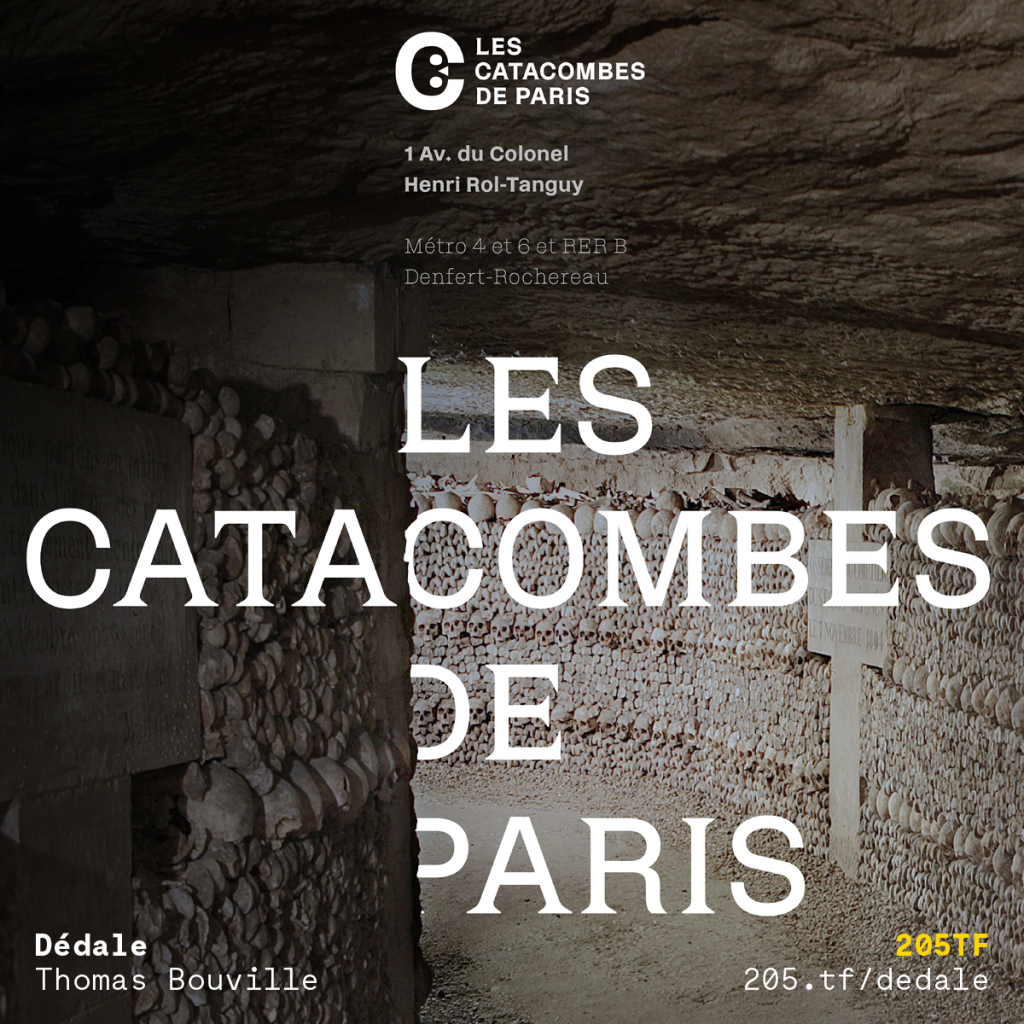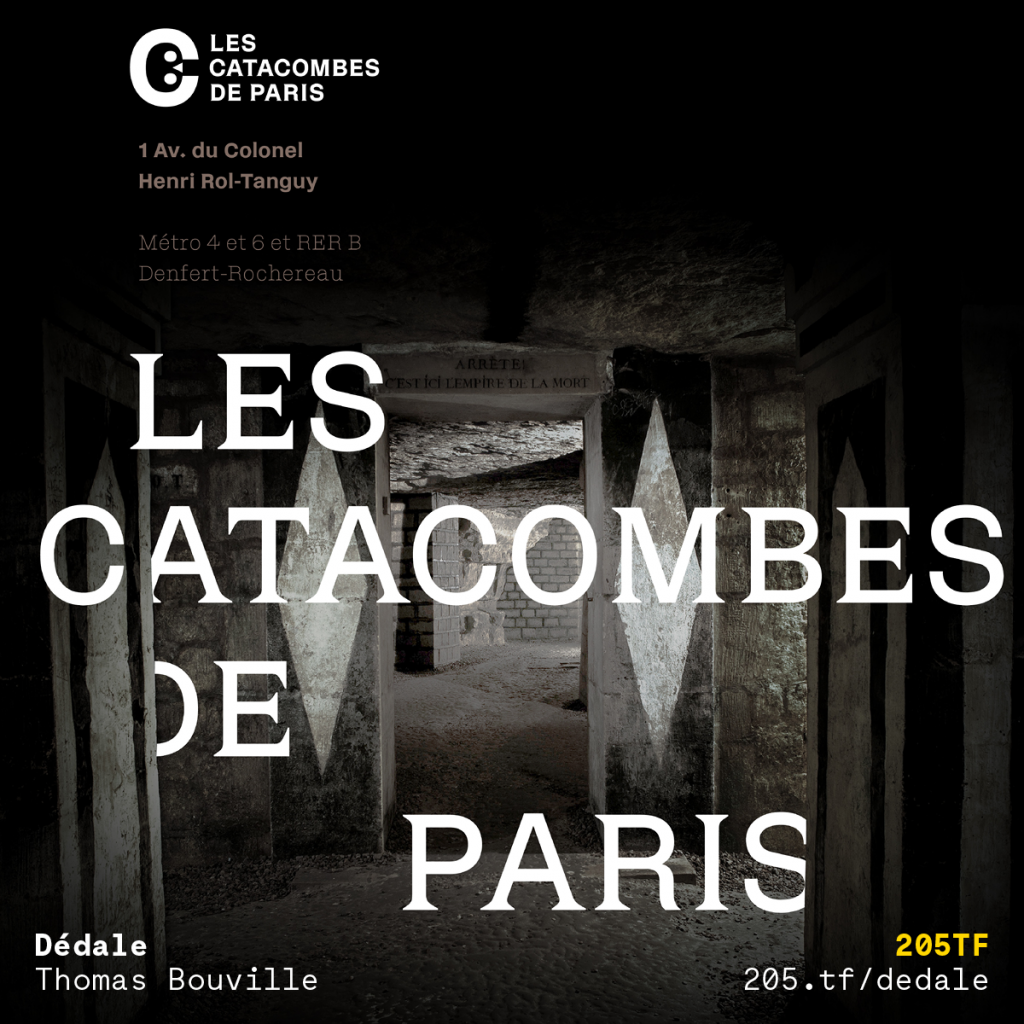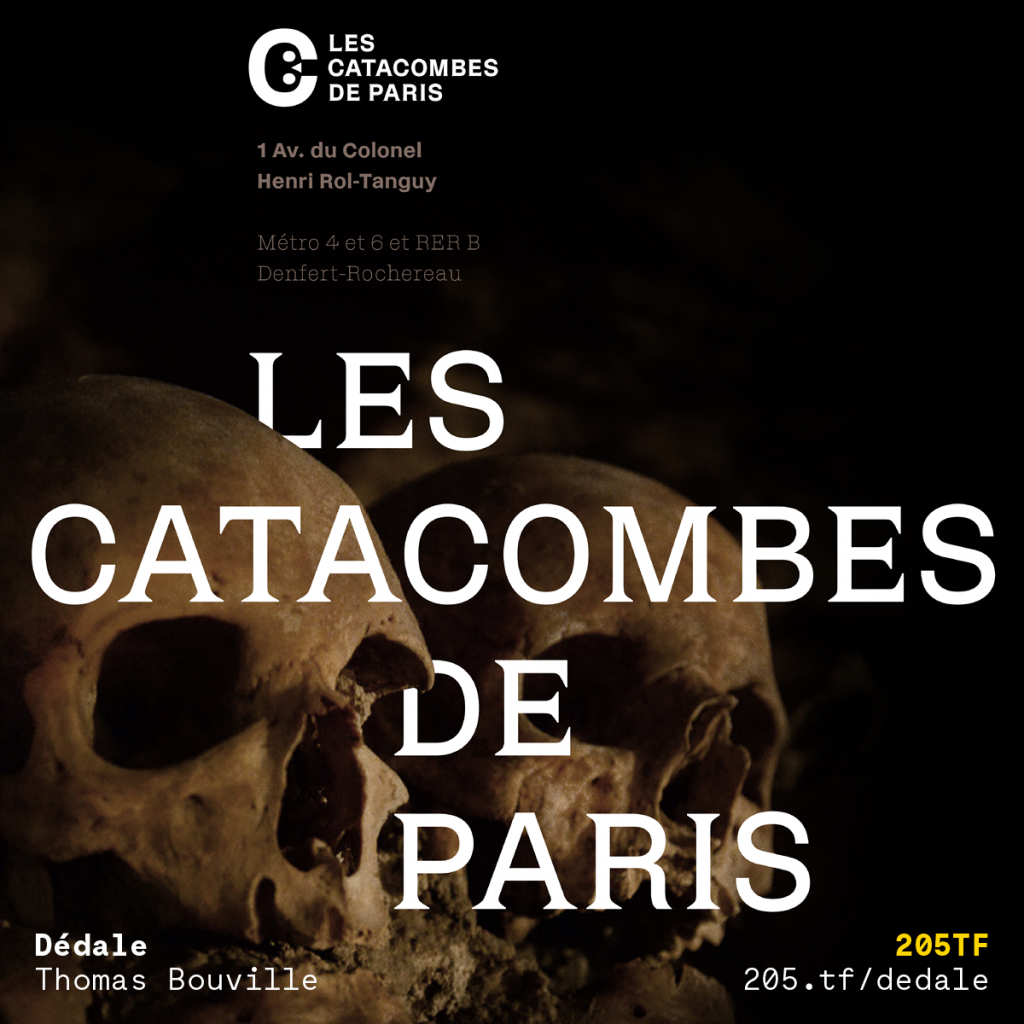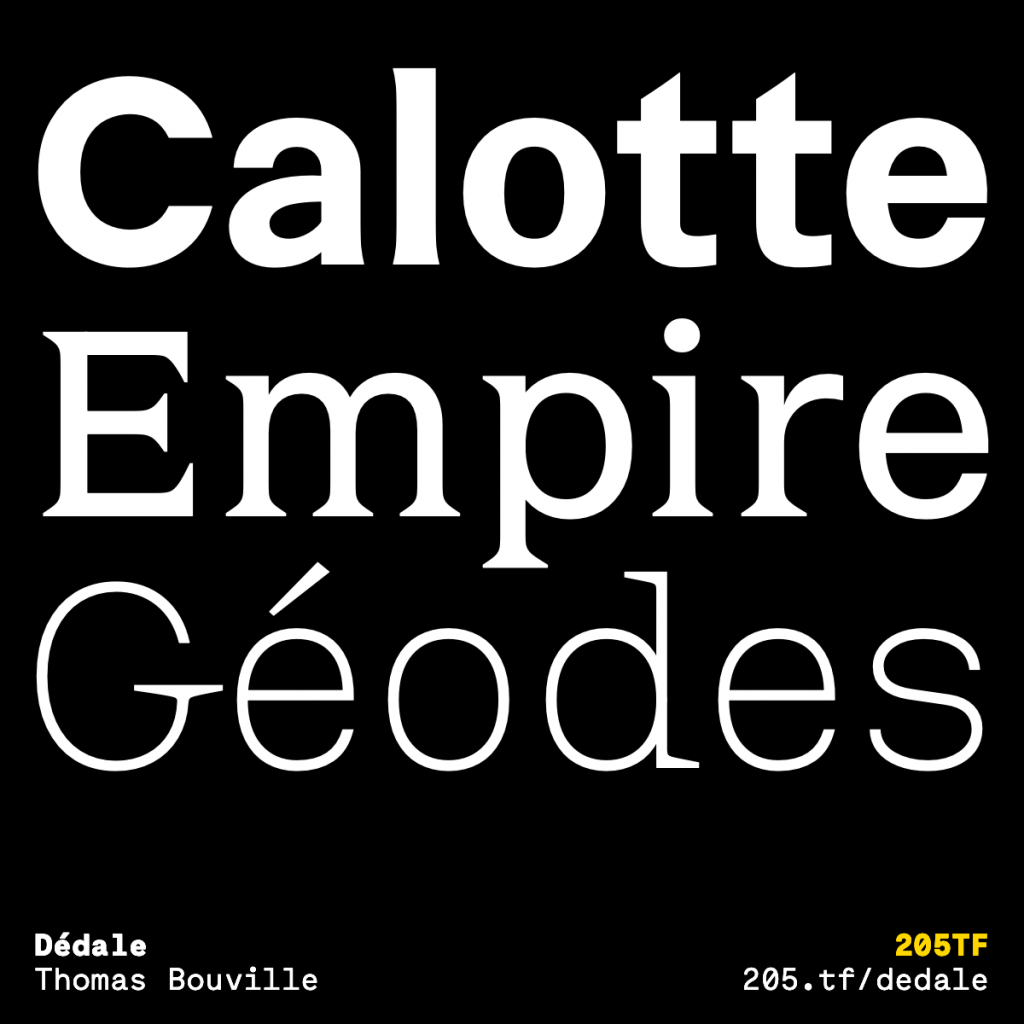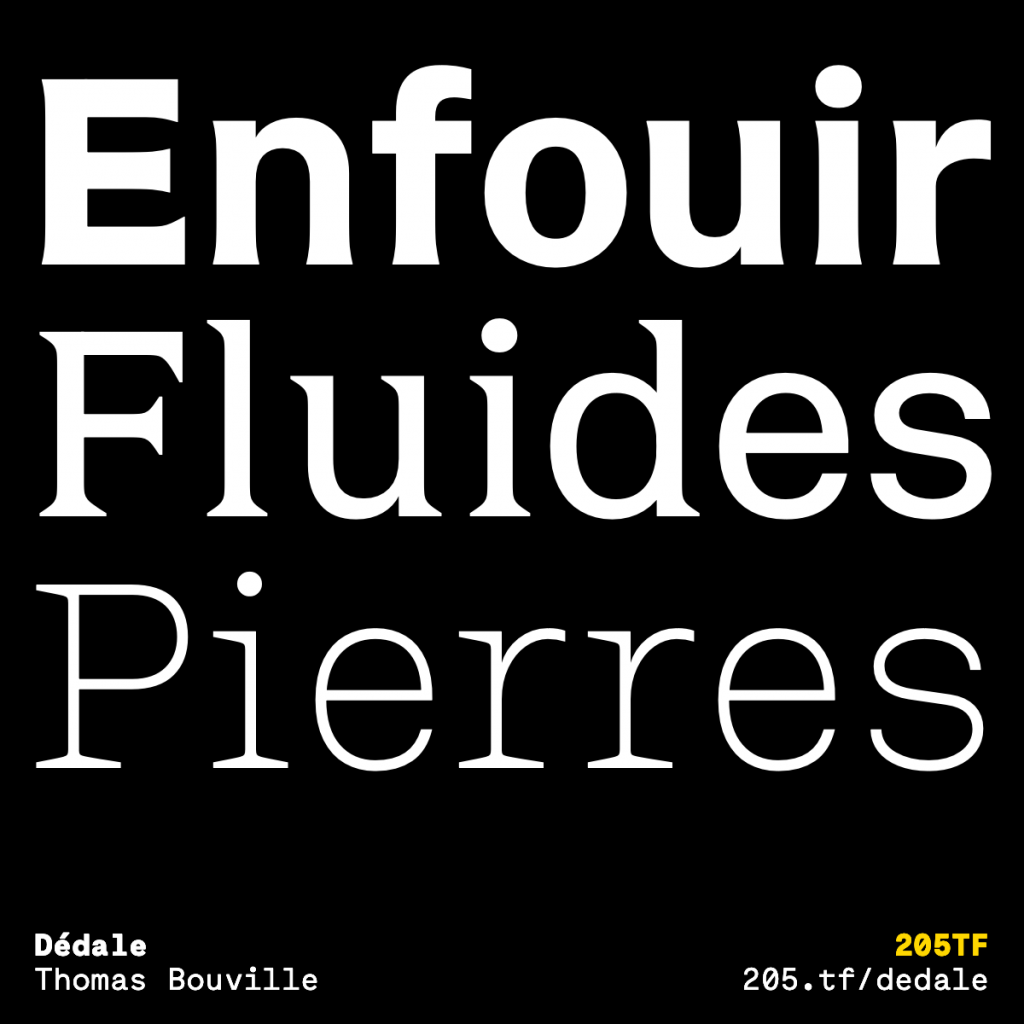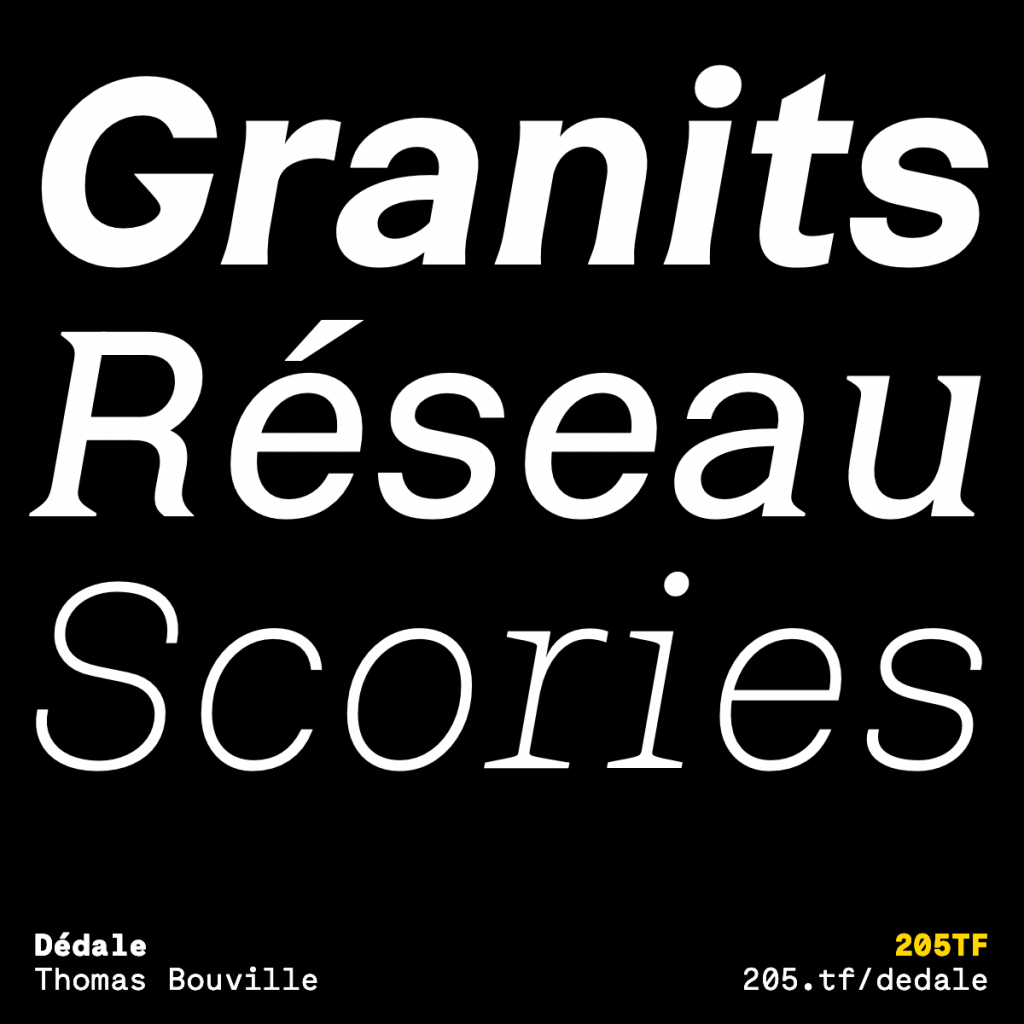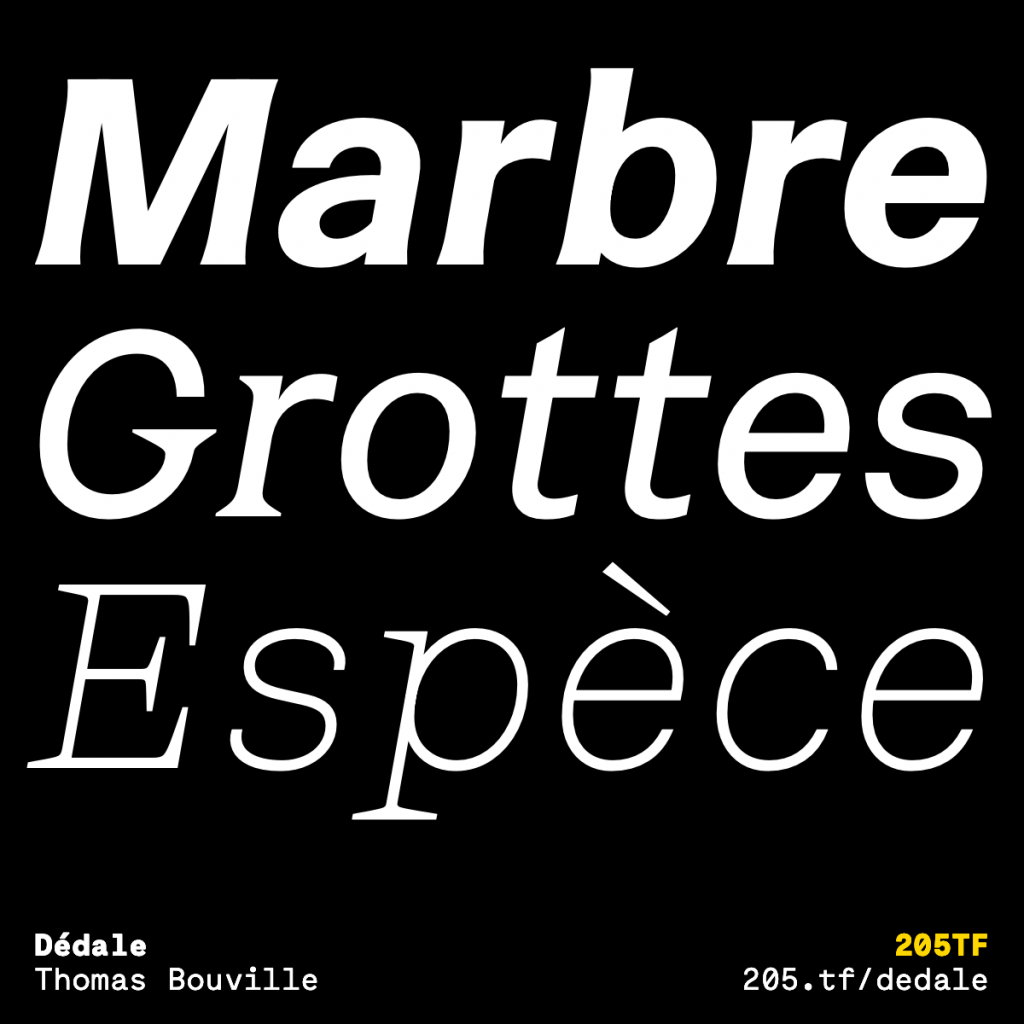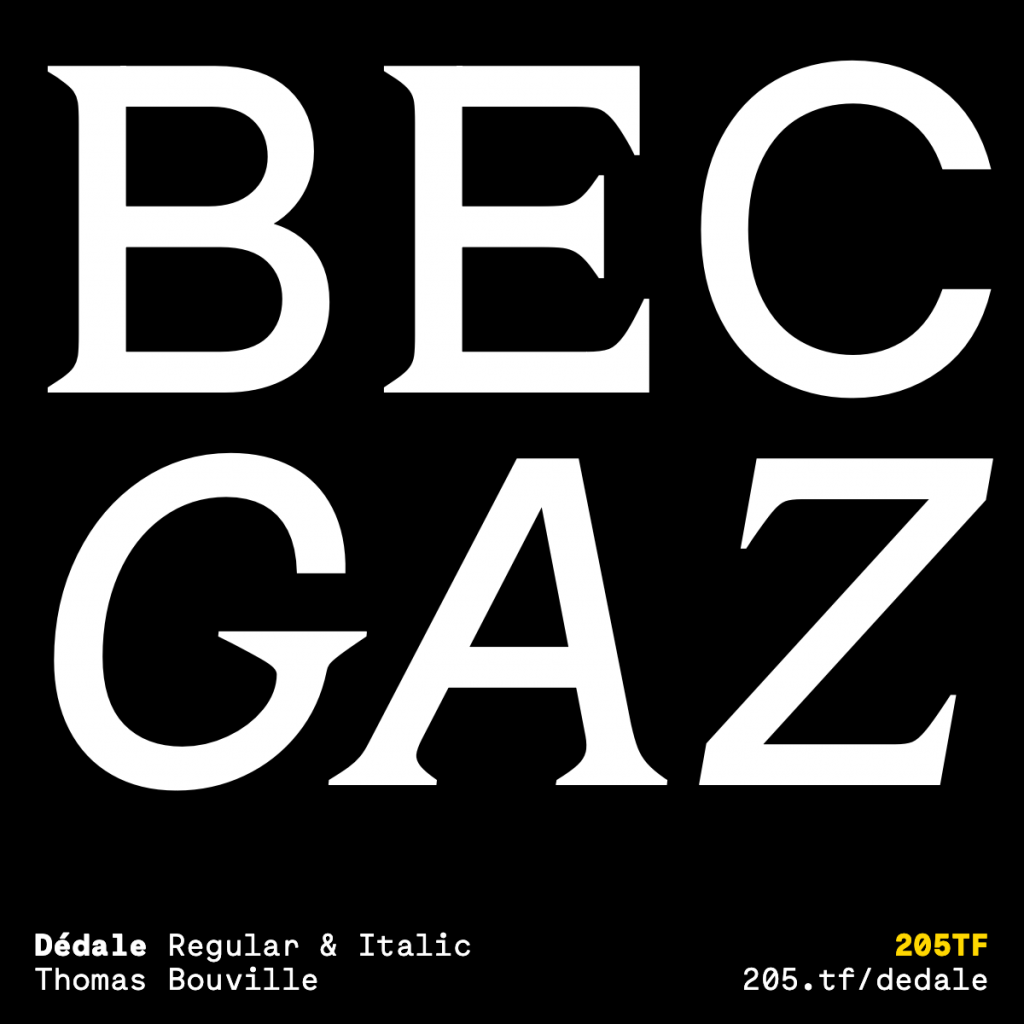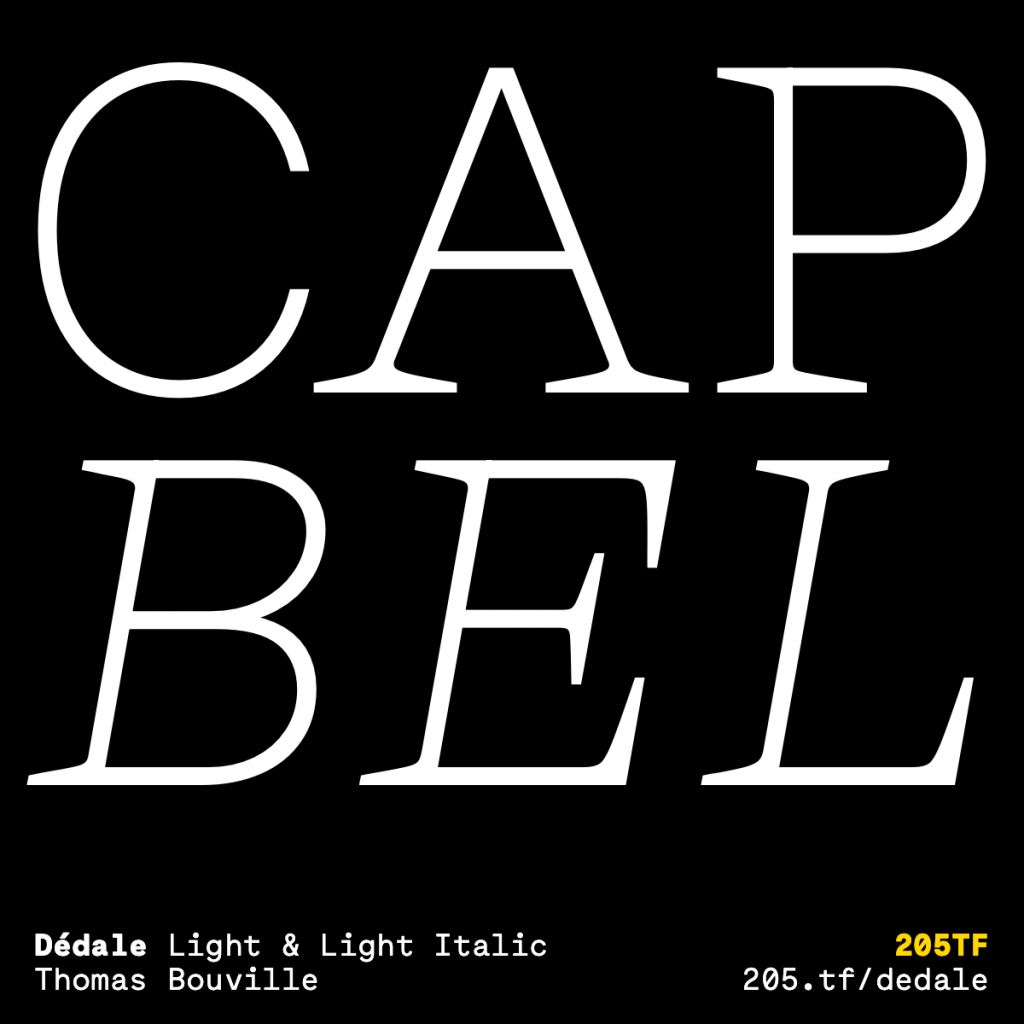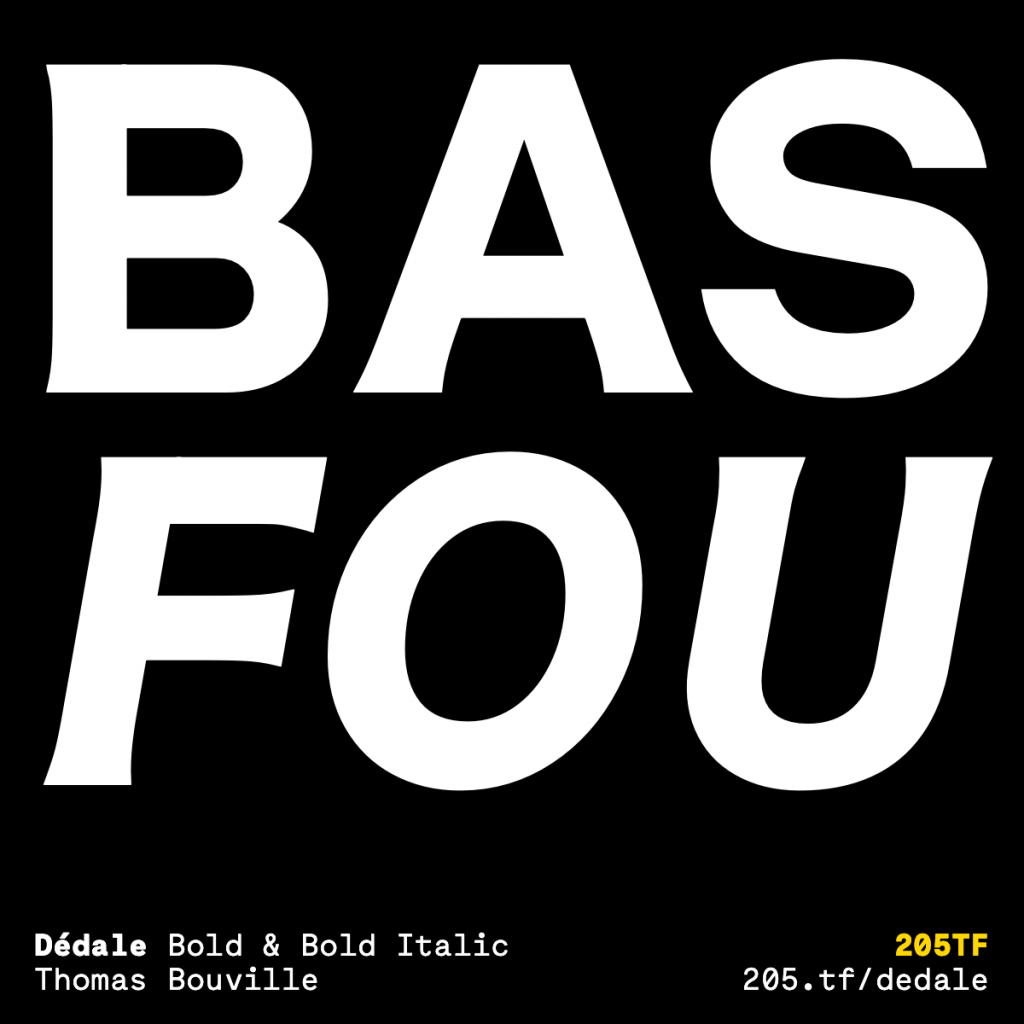
Back Story: Dédale began life in 2017 when Thomas Oudin of graphic design studio Mo-To got in touch with type designer Thomas Bouville about a project he wanted to pitch for: a new visual identity for the Paris Catacombs. Bouville and Oudin went for a meeting with the team at Paris Musées, the organization that coordinates museums across Paris, and visited the catacombs—a trip that left Bouville “immediately amazed” by the quantity of engraved lettering inscriptions that adorn the walls of the underground ossuaries, and ranged in origin from the 16th to the 19th century. Some are geographical landmarks, others gravestone inscriptions, and some are poetic and philosophical texts. Bouville says that “this rich context of letters” guided the creation of the Dédale family of fonts. The visual identity project is now in its final stages, with the font already in use across the entrance to the catacombs, the logo, and the website.
As Dédale was initially designed for the Paris Catacombs identity, its designers had to bear in mind those historical links while also acting as a “functional graphic tool,” as Bouville puts it. To achieve this balance, he decided to take the idea of “erasure” present in the passages and apply it to the structure of Neo-Grotesque type forms. The designer went on to create a “plain bold version, a regular eroded version, and a light skeleton version.”
Why’s it called Dédale? Dédale translates from the French word for “labyrinth” (think Daedalus in Greek mythology). “It seems logical regarding the multiple underground passages, and the different functions of this particular place: firstly a stone quarry, secondly a cemetery, and finally a museum,” says Bouville.
What are its distinguishing characteristics? Overall, the font family is heavily informed by the erosion that gives the catacombs lettering its character. This is shown by the interplay of the more diminutive stems and the more accentuated serifs. The Light version of Dédale is a slab serif, the Regular an incised, and the Bold a sans serif that retains many of the details from the incised stone letterforms. Each style has its own italic, and the variable version of the family means users can easily move between the styles.
Some letters within the font retain the unusual forms found in the catacombs inscriptions, such as the G or the Q for example, while the punctuation dots are diamond-shaped.
What should I use it for? According to Bouville, the “main structure of the typeface has been designed to be functional and readable for long texts,” while the different weights enable designers to create a “classical hierarchy” when designing longer text-based pieces.
While the catacombs were the starting point for Dédale, the font isn’t exclusive to their identity: among the other uses its designers are aware of are “a vast signage project for the new headquarters of a French industrialist,” so it’ll be interesting to see how the font adapts to large-scale uses. At the other end of the spectrum, Dédale is also set to be used in a magazine themed around the Anthropocene.
“Dédale has left the catacombs, it flourishes in very varied contexts,” says Bouville. He adds that the team is hoping to create a web animation to show off the variable font and the family’s significant changes as it moves between its various weights.
What other typefaces do you like to pair it with? Both thematically and stylistically, it would act as a nice counterpoint to a modern font such as 205TF’s Kelvin. “The durability of the humanist ideas developed in the Kelvin family confronted with human mortality in Dédale…” ponders Bouville, cheerfully.